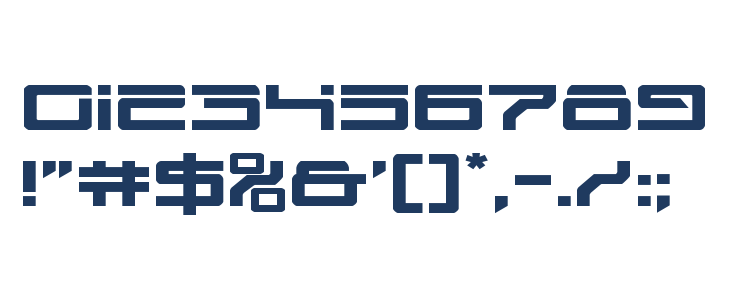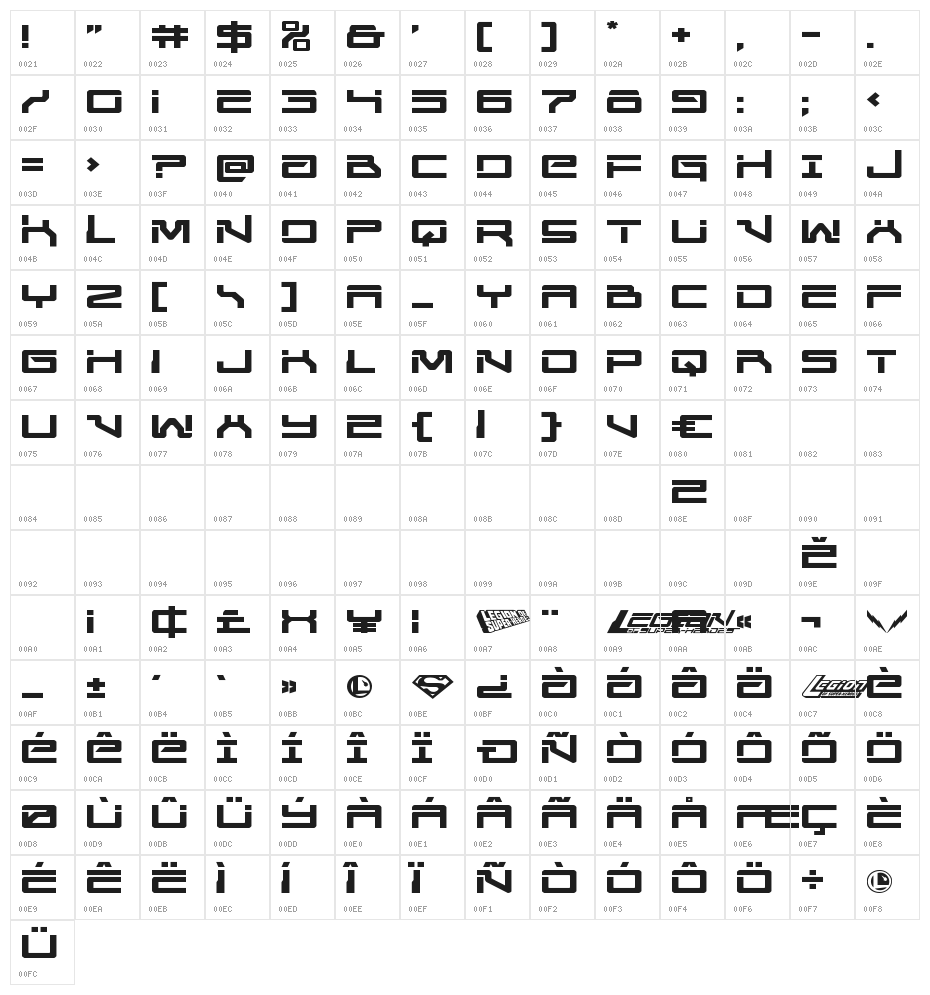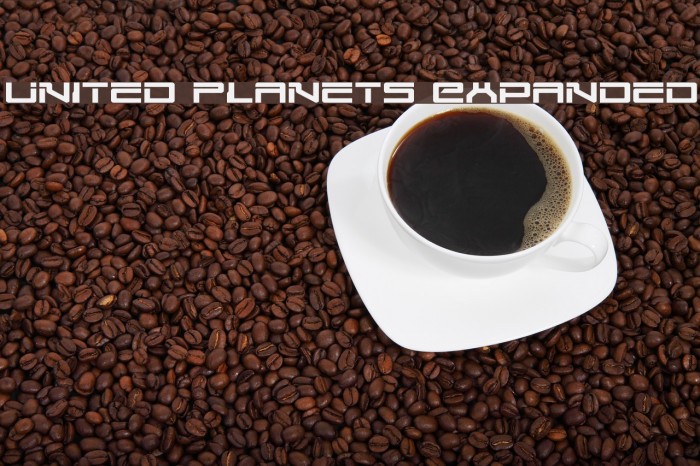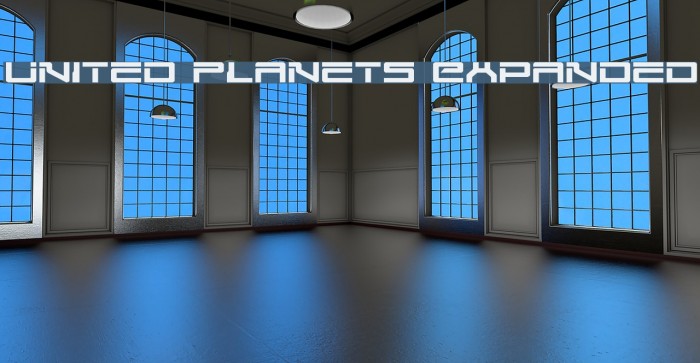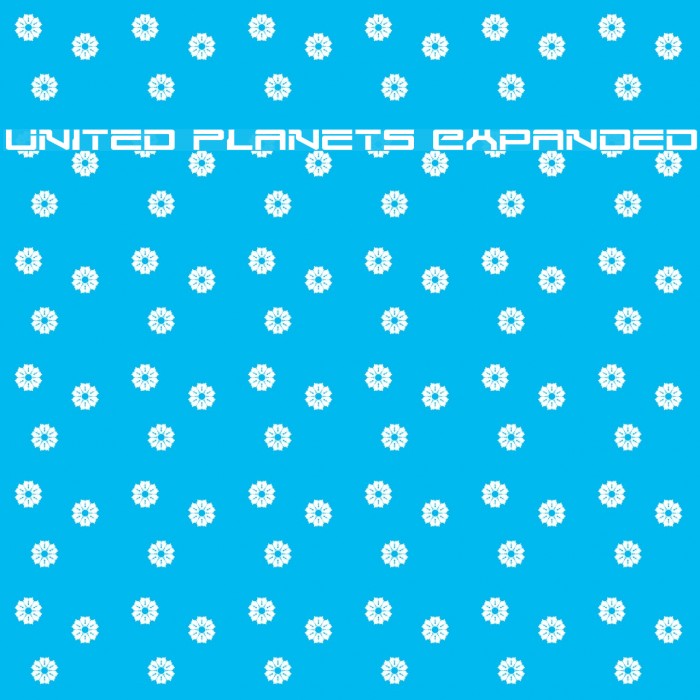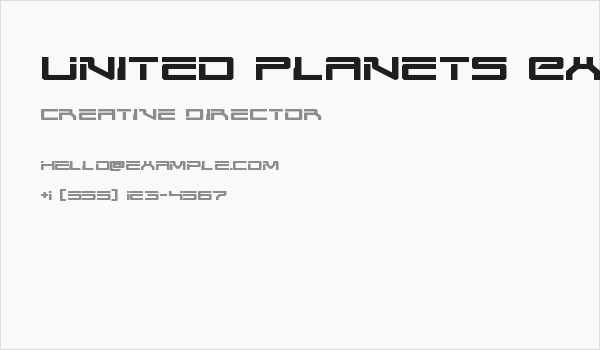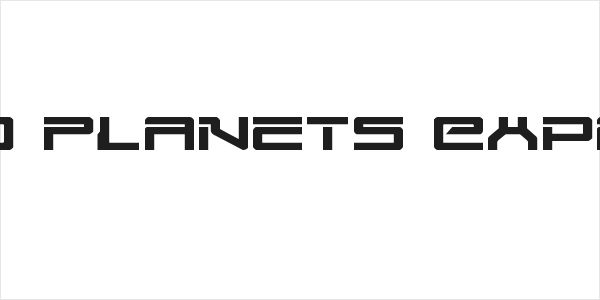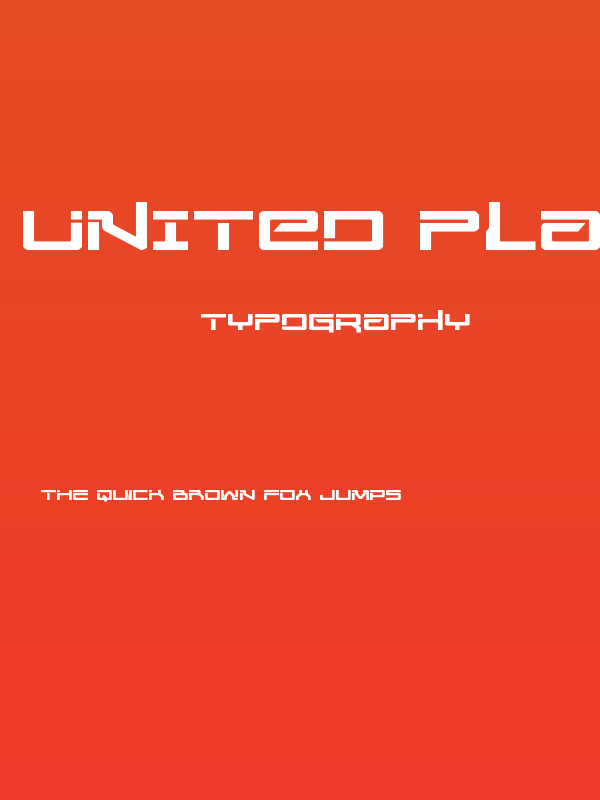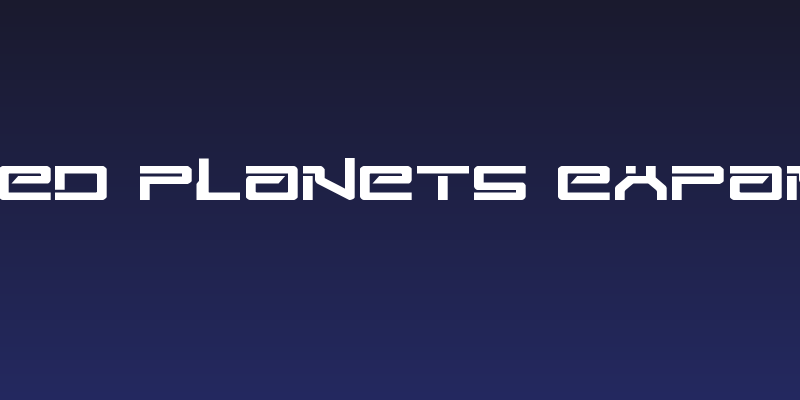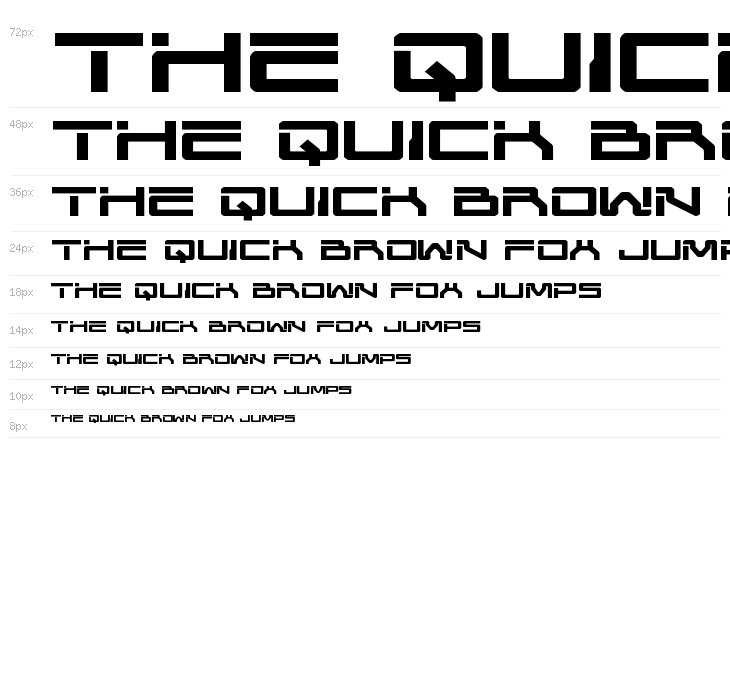
United Planets Expanded Font
United Planets Expanded Description
This font features a futuristic and geometric design, characterized by its bold and angular letterforms. The characters are constructed with sharp edges and straight lines, giving it a distinctly modern and digital appearance. The uppercase and lowercase letters maintain a consistent style, with a uniform height and width that enhances its structured look. The numerals and special characters follow the same design principles, ensuring a cohesive visual identity across all elements. Its expanded width and blocky style make it stand out, ideal for projects that require a strong and impactful typeface.